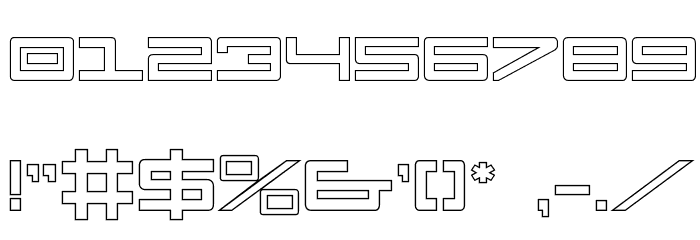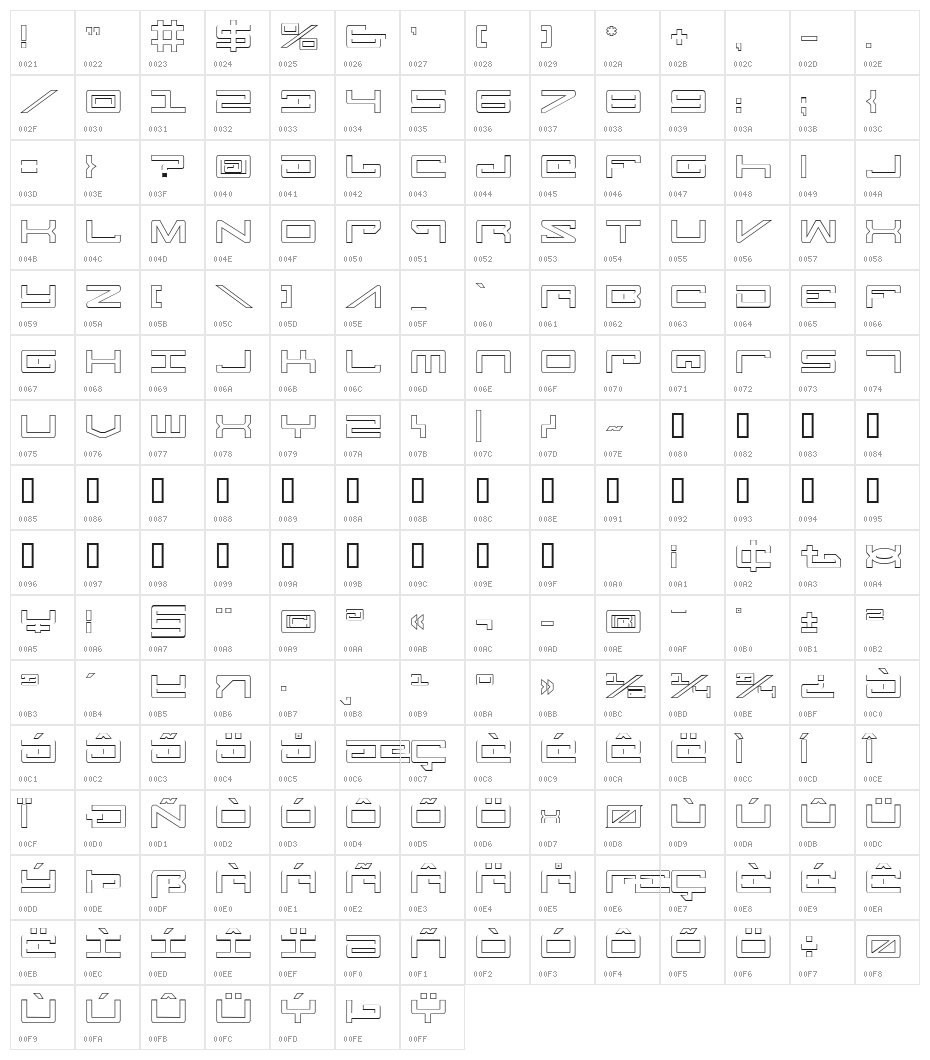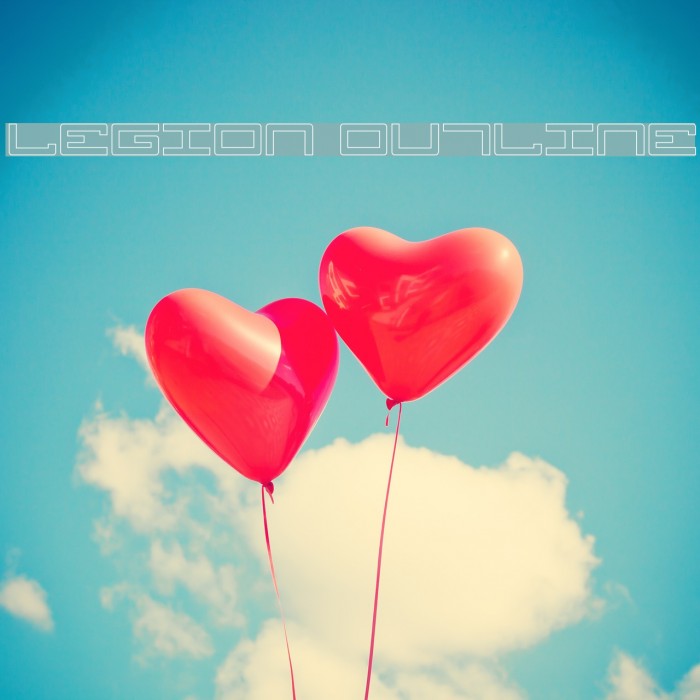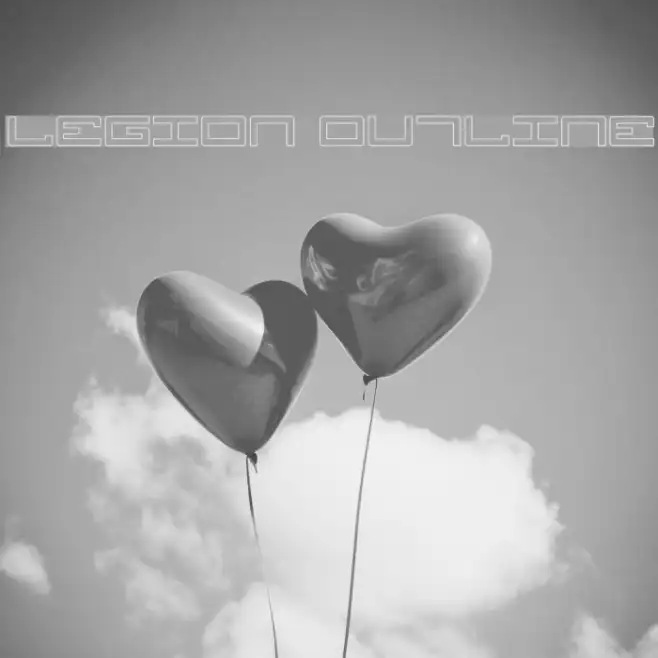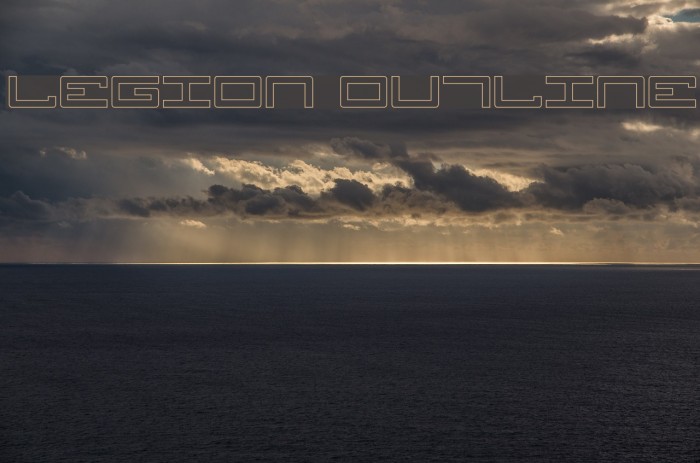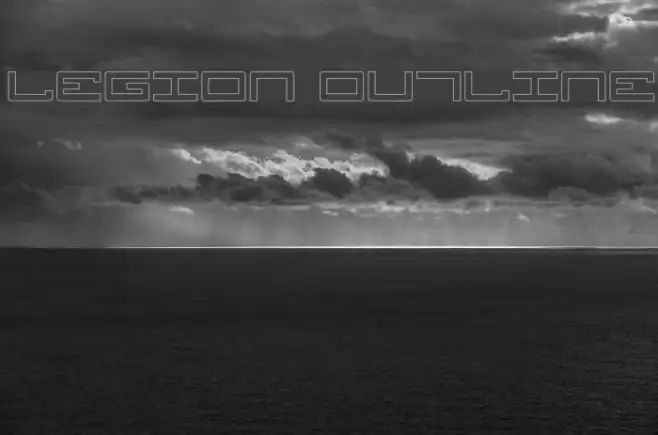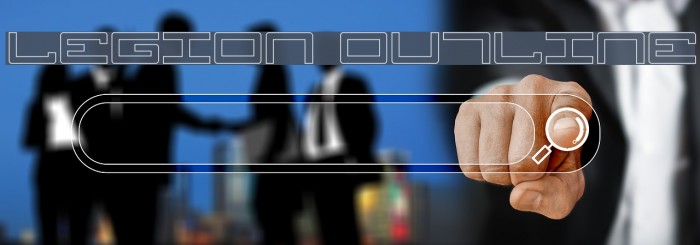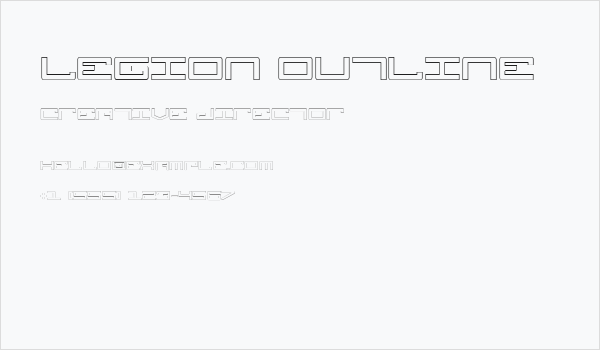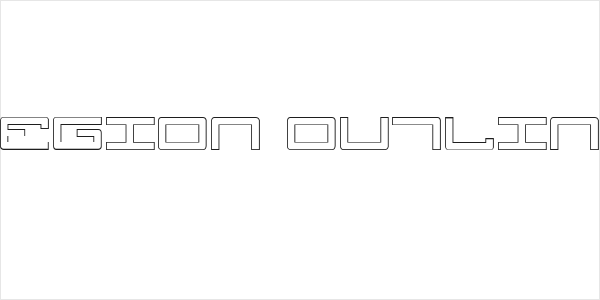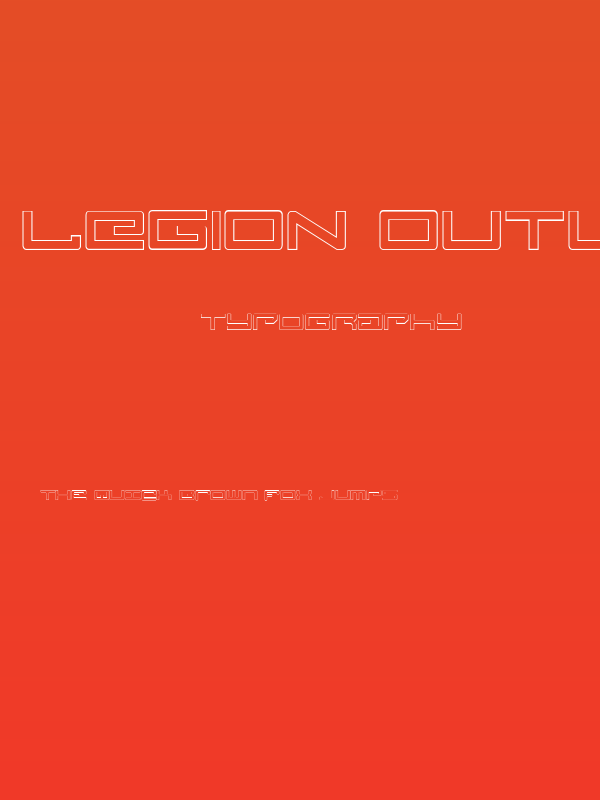
Legion Outline Font
Legion Outline Description
This font features a distinct outline style, characterized by its geometric and angular design. The letters are formed with clean, sharp lines, creating a futuristic and technical appearance. The uppercase and lowercase letters maintain a consistent height, contributing to a uniform look. The numerals and special characters follow the same design principles, ensuring cohesion across all glyphs. The font's outline nature gives it a lightweight feel, making it suitable for designs that require a modern and minimalistic touch.